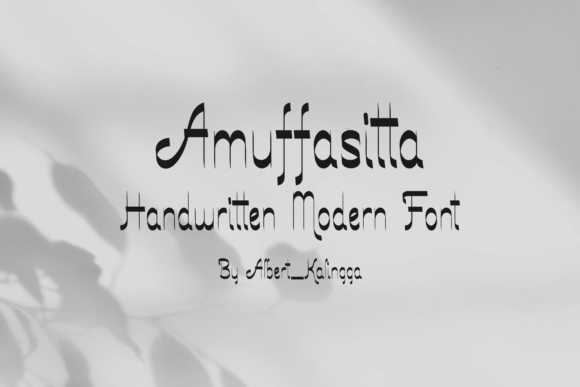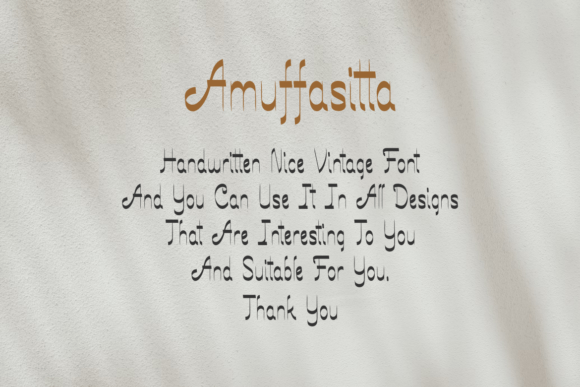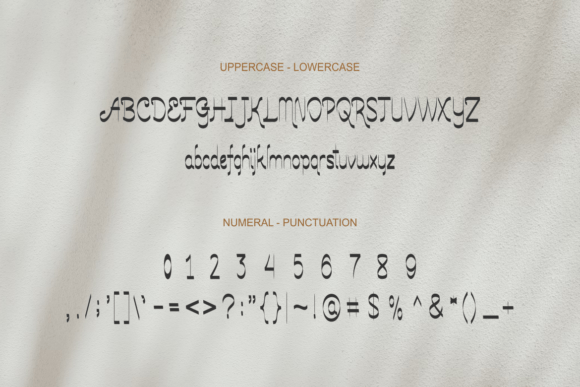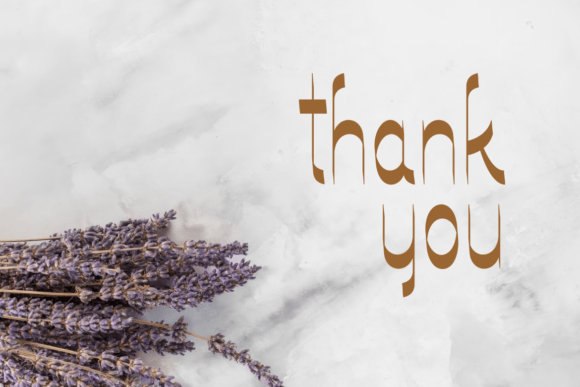
The Designer’s Delight: Amuffasitta Font
I’ll never forget the time I was working on a project for a client who wanted a elegant, yet playful font to match their brand’s personality. I spent hours scouring through font libraries, but nothing seemed quite right. That was until I stumbled upon the Amuffasitta font. This dazzling script font has since become a staple in my font library, and I’m excited to share its beauty with you.
So, what makes Amuffasitta so special? Let’s dive into the good stuff! ✨
- ✅ Neatly crafted and highly detailed: This font is meticulously designed, with intricate details that make it stand out from the crowd.
- ✅ Versatile and adaptable: Whether you’re working on a logo, brochure, or social media graphics, Amuffasitta can handle it all.
Of course, no font is perfect, and Amuffasitta is no exception. Here are a few minor quirks to keep in mind: 🤔
- ⚠️ Some characters may require manual kerning: As with any script font, you may need to adjust the kerning to get the perfect spacing.
- ⚠️ May not be suitable for very small text sizes: Due to its intricate details, Amuffasitta may not be the best choice for very small text sizes.
The Story Behind Amuffasitta
While the true story behind Amuffasitta remains a mystery, it’s easy to imagine that it was created by a talented designer with a passion for elegant script fonts. Perhaps they were inspired by the flowing curves of handwritten calligraphy or the intricate details of vintage typography. Whatever the inspiration, Amuffasitta is a true masterpiece.
| Font Name | Amuffasitta Font |
| Is Amuffasitta suitable for body text? | While Amuffasitta is a beautiful font, it’s best suited for headlines and titles. Its intricate details may make it difficult to read in large blocks of body text. |